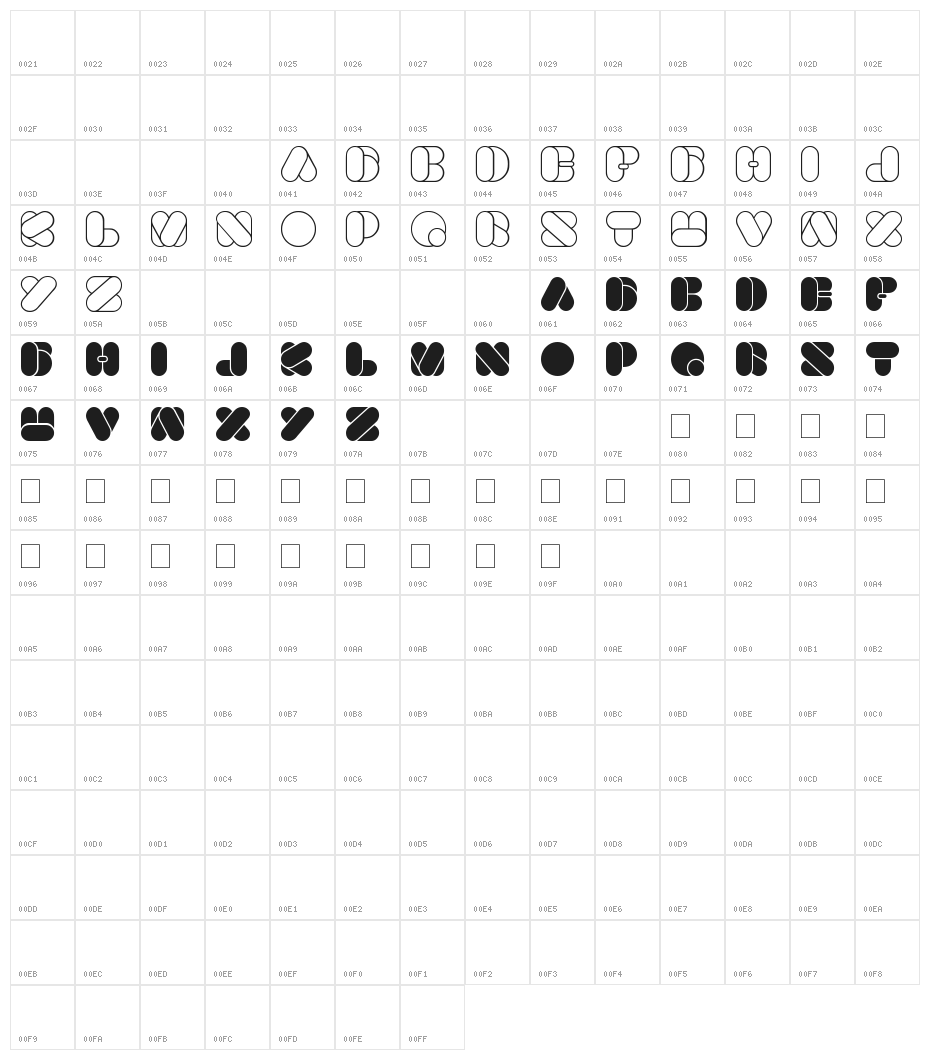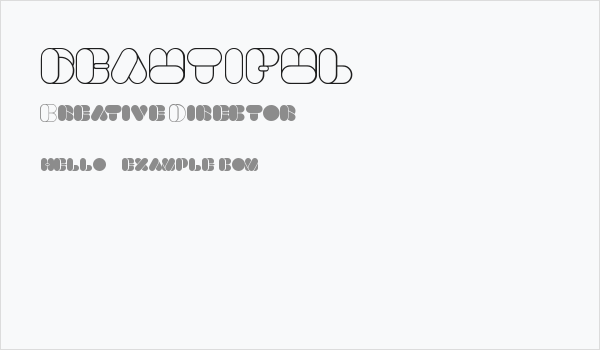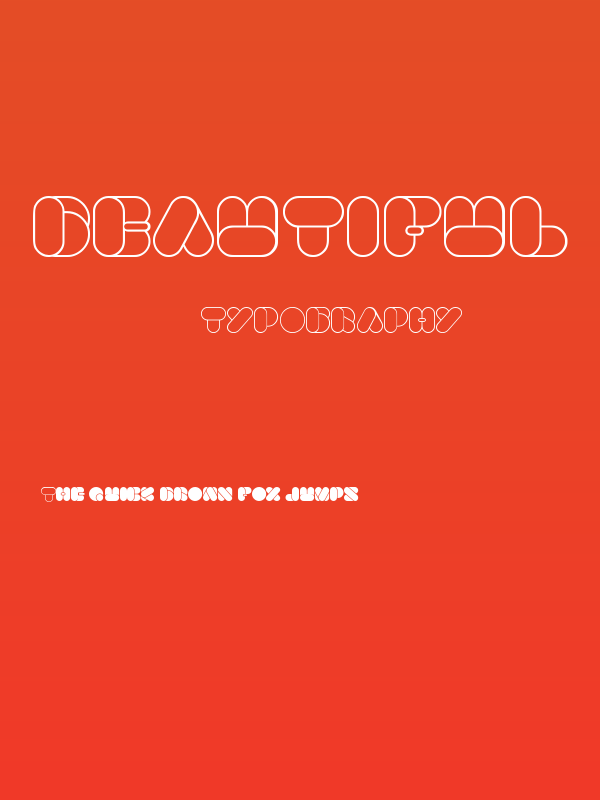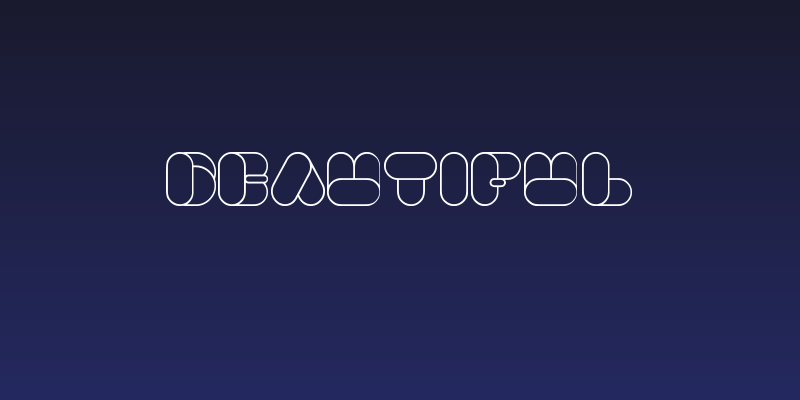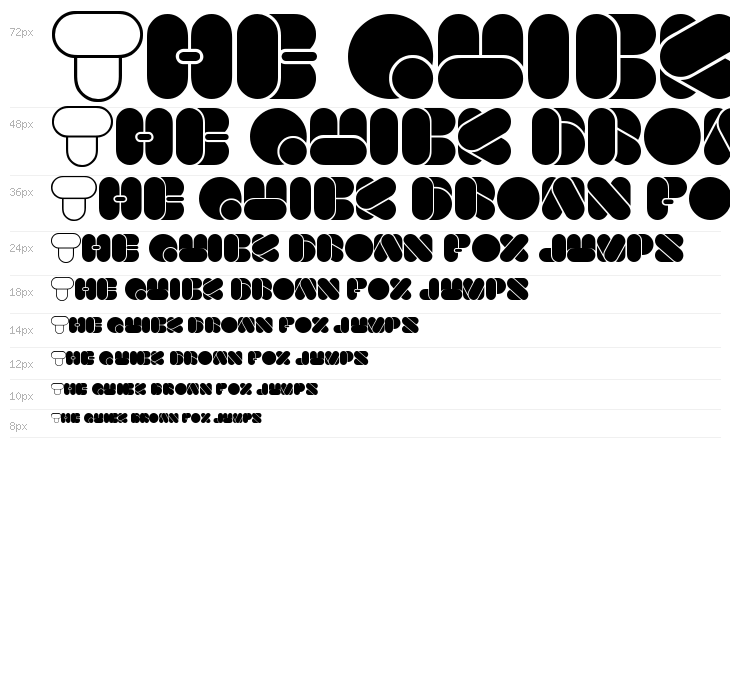
BEAUTIFUL Font
| Anwendungsfall | Logos, Headlines, Posters |
| Vorgeschlagene Projekte | Ideal for branding, poster design, album covers, and any project requiring a bold, artistic statement. |